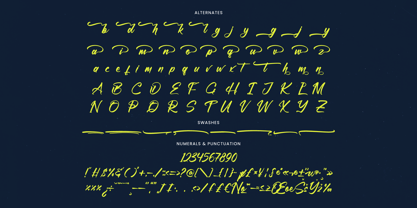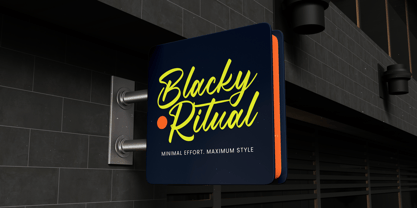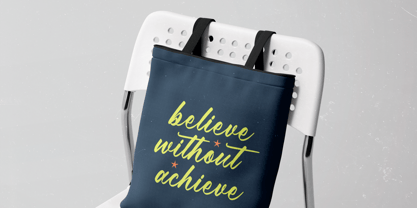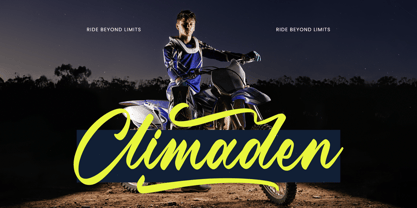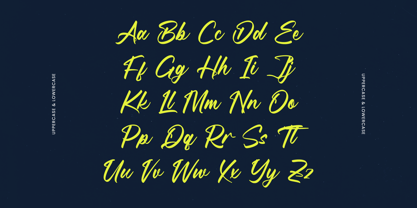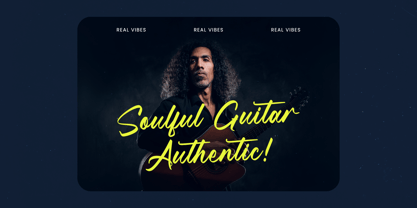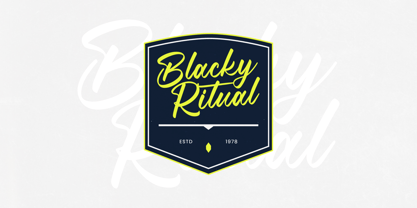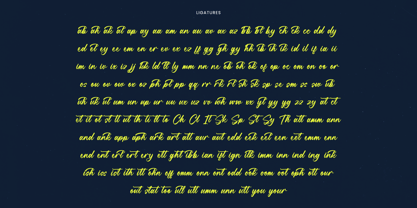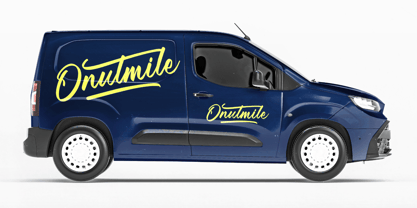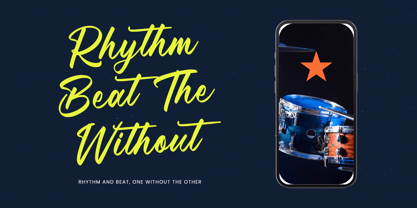
Manteca Backlif
by Letterena Studios
The Manteca Backlif Font Family was designed by Heru Utama Putra and published by Letterena Studios. Manteca Backlif contains 2 styles and family package options. More about this family
Manteca Backlif - Bold Calligraphy Font , from Letterena, is a Luxury Script font, suitable for any projects such as: logos, branding projects, homeware designs, product packaging, mugs, quotes, posters, shopping bags, t-shirts, book covers, name card, invitation cards, greeting cards, label, photography, watermark, special events, and all your other luxury and beautiful projects that need a Luxury Script taste.